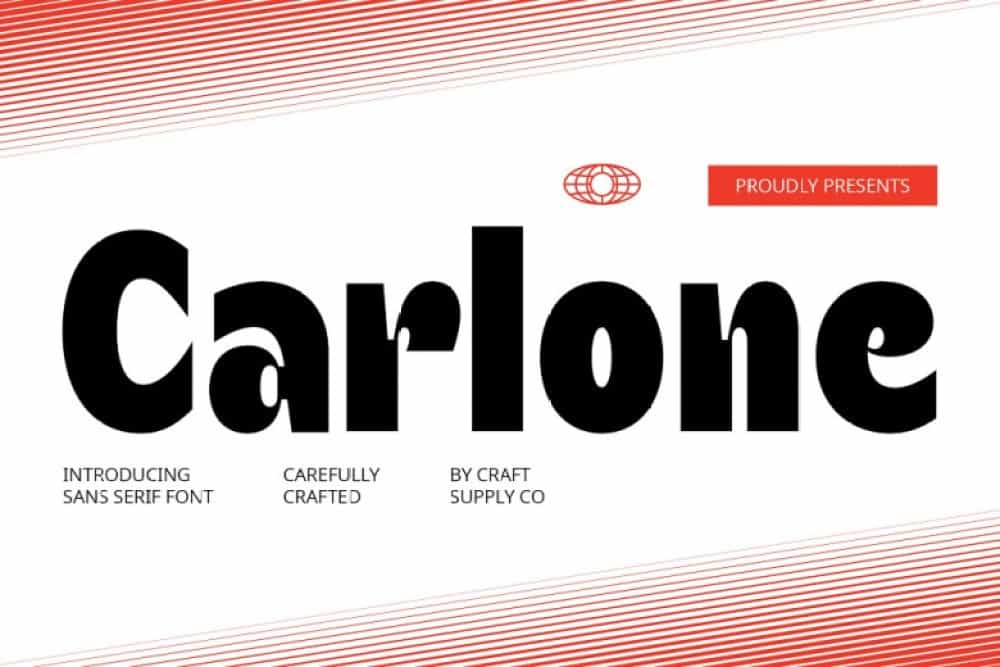
Carlone is a modern bold sans-serif font family that has clear and striking characteristics to it. Due to the use of broad lines as well as the contemporary style, it creates an appearance and feeling of power and intensity. It is the best option for underlining titles or any text that needs to be highlighted sharply.